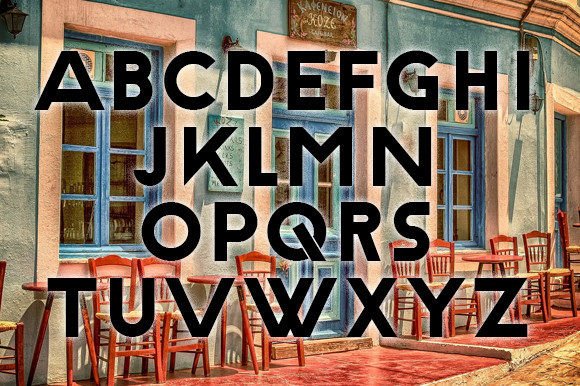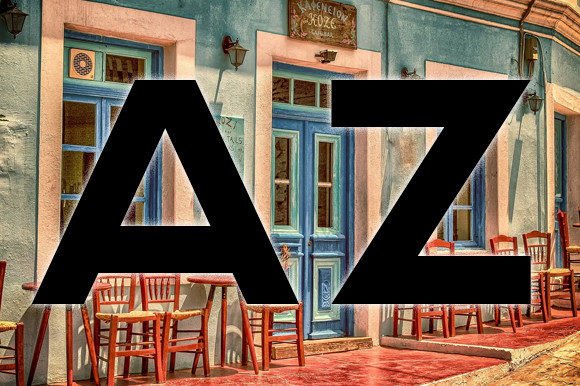
Introduction to Rico Font
As a designer, you’ve probably found yourself in a creative rut, staring at a blank canvas with no inspiration in sight. You’re searching for that one special font that will elevate your design and make it truly stand out. Well, we’ve got some exciting news for you – enter Rico Font, the awesome sans serif font that’s about to become your new best friend.
Whether you’re working on a poster, flyer, or t-shirt design, Rico Font is the perfect addition to any creative project. Its clean lines, modern aesthetic, and high-quality design make it a valuable resource for designers of all levels. And the best part? It’s available for free download, so you can start using it right away – no strings attached.
Rico Font
- High-quality, professional font suitable for various creative projects
- Includes a range of glyphs and characters, ideal for complex design work
- Perfect for use in various design applications, including print and digital media
Honest Review: Rico Font
I recently had the chance to work with the Rico Font, and I must say it’s a solid addition to any designer’s toolkit. This free download is a high-quality resource that can elevate any creative project.
What works well: ✨ The Rico Font is incredibly versatile, with a clean and modern design that makes it suitable for a wide range of applications. The transparent background also makes it easy to use on any background, which is a definite plus.
Some of the key features of the Rico Font include:
- High-quality design that’s perfect for modern projects
- Transparent background for easy use on any background
- Perfect for use in logos, branding, and other creative projects
Limitations: ⚠️ While the Rico Font is a great resource, it’s not without its limitations. The font family is relatively small, which may limit its use in certain projects. Additionally, some users may find the font to be too simple or lacking in character.
Overall, I’m impressed with the Rico Font and would definitely recommend it to designers looking for a high-quality, versatile font. It’s a great addition to any design resource library, and I’m sure it will be a valuable asset for many creative projects.
Rico Font
Tips for Getting the Most Out of Rico Font
When using Rico Font, be sure to use it with a transparent background to get the most out of its high-quality design. You can also experiment with different font sizes and styles to create unique and creative designs.
Rico Font is a versatile design resource that can be used in a variety of creative projects, including:
- Logos and branding
- Graphics and illustrations
- Websites and web design
Alternatives to Rico Font
Dancing Script Font is a beautiful, cursive script font that’s perfect for adding a touch of whimsy and personality to your design project. It’s ideal for use in invitations, posters, and social media graphics. When to use: Casual events, parties, and social media promotions. How it compares to Rico Font: While Rico Font is more versatile, Dancing Script Font is more playful and eye-catching.
Lobster Font is a unique, handwritten font that’s perfect for adding a touch of personality and character to your design project. It’s ideal for use in social media graphics, advertisements, and promotional materials. When to use: Casual events, parties, and social media promotions. How it compares to Rico Font: While Rico Font is more elegant, Lobster Font is more playful and fun.
Whether you’re a seasoned designer or just starting out, Rico Font is definitely worth downloading. Its free availability and high quality make it an excellent addition to any design arsenal. So why not give Rico Font a try? Download it today and experience the benefits of a professional-grade font for yourself. With Rico Font, the possibilities are endless, and your creative projects are sure to shine.